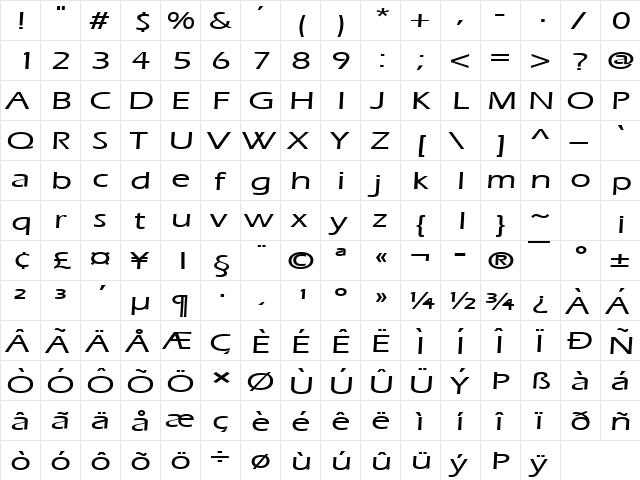
Eric Extended Normal
Design Context for Eric Extended Typeface
Eric Extended is a composed and adaptable typeface that performs quietly and consistently across a wide range of design contexts.